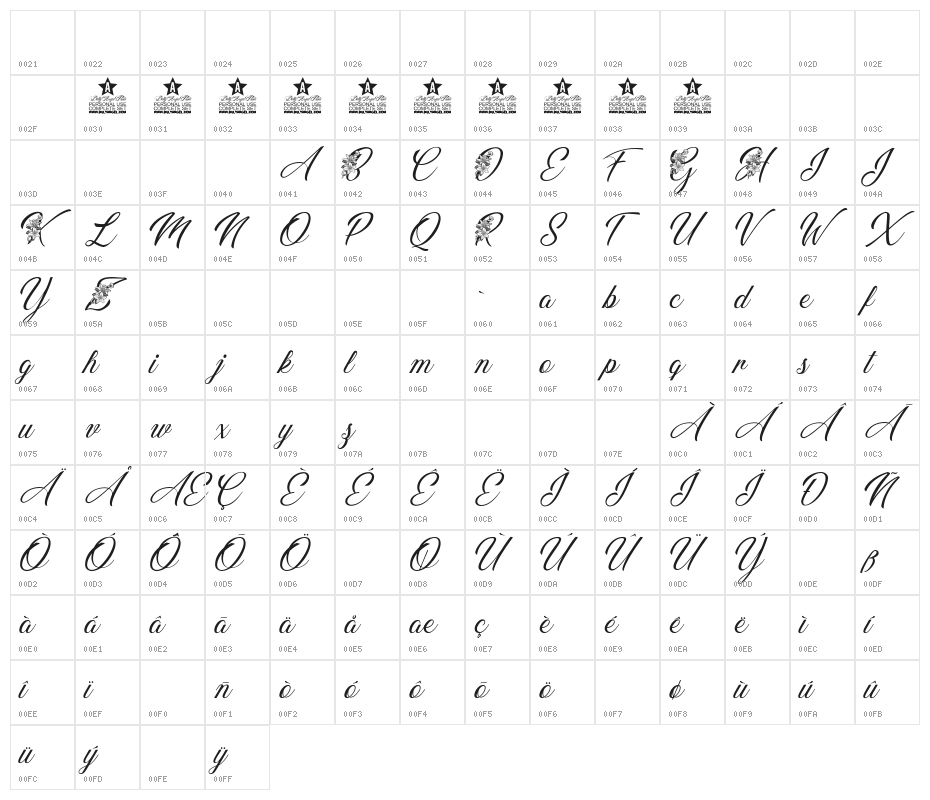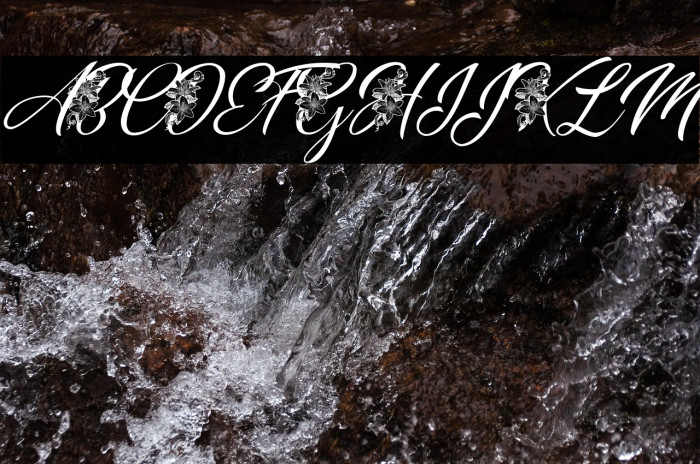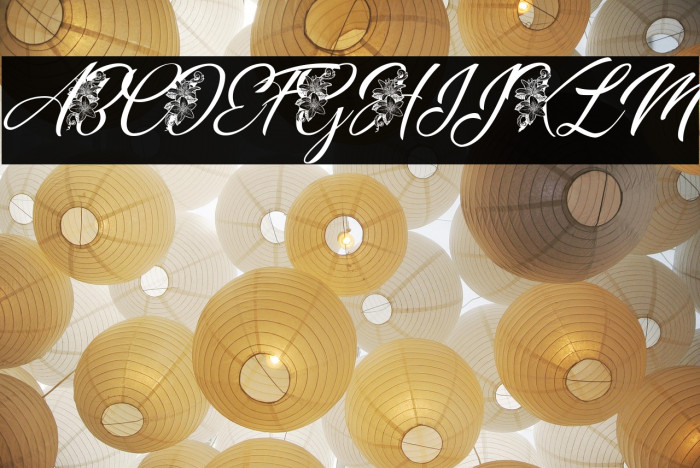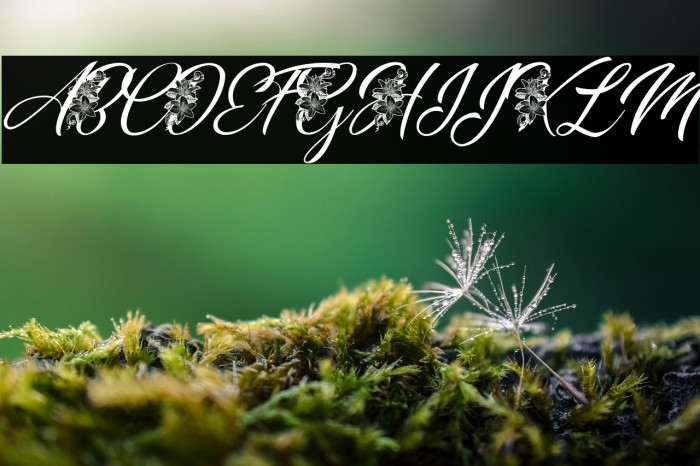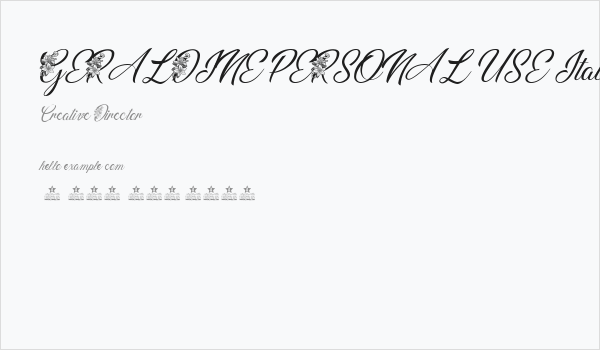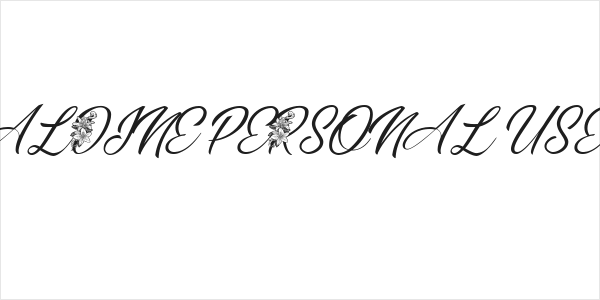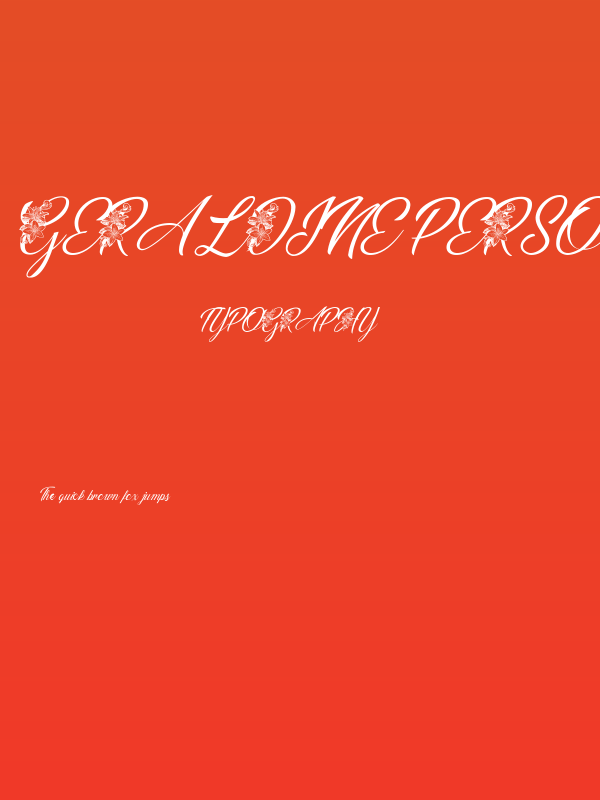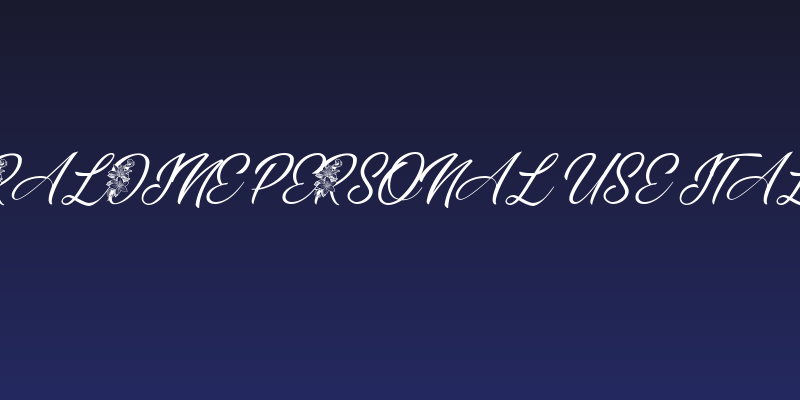
GERALDINE PERSONAL USE Italic Font
GERALDINE PERSONAL USE Italic Description
This font exudes elegance and sophistication with its flowing, cursive style. The uppercase letters are adorned with intricate floral designs, adding a decorative touch that enhances its ornamental appeal. The lowercase letters maintain a smooth, connected script that is both stylish and readable. The italic slant further emphasizes its graceful appearance, making it ideal for projects that require a touch of refinement. The numerals and special characters are designed to complement the overall aesthetic, ensuring consistency across all text elements.
| Proposed Projects | Ideal for wedding invitations, elegant branding, greeting cards, and decorative headlines. |